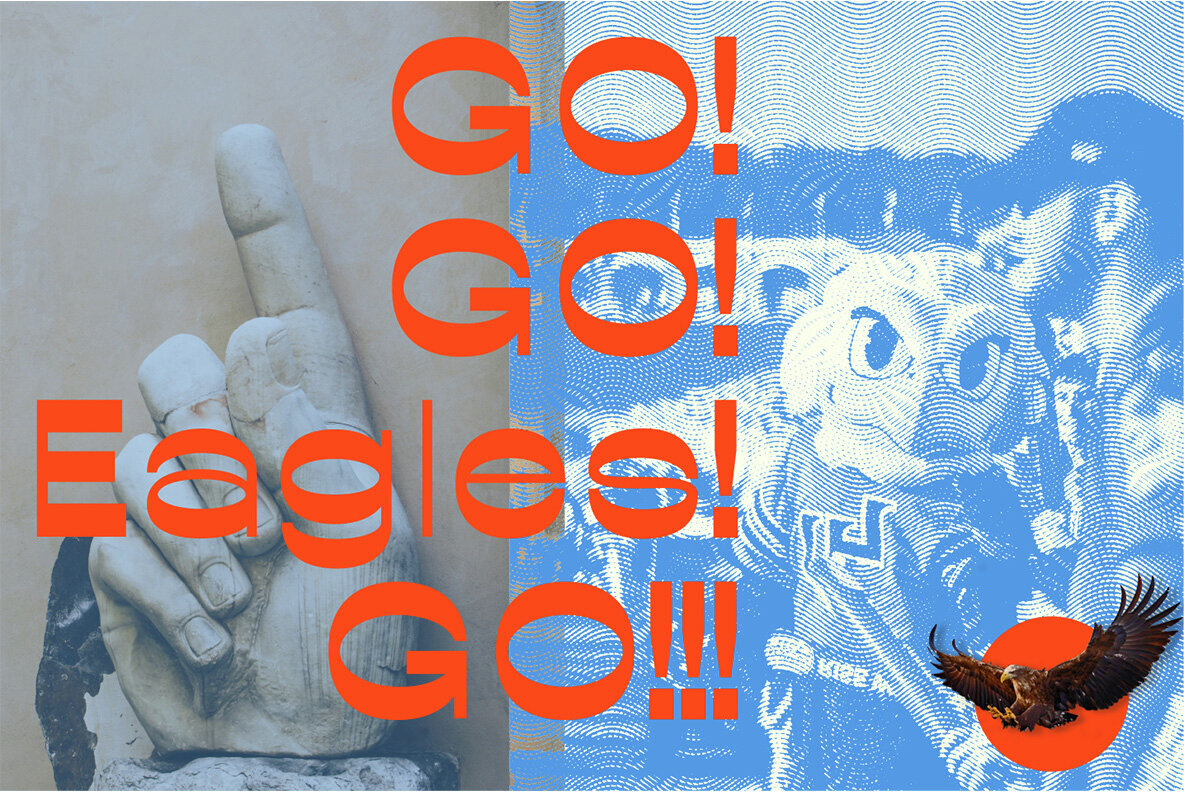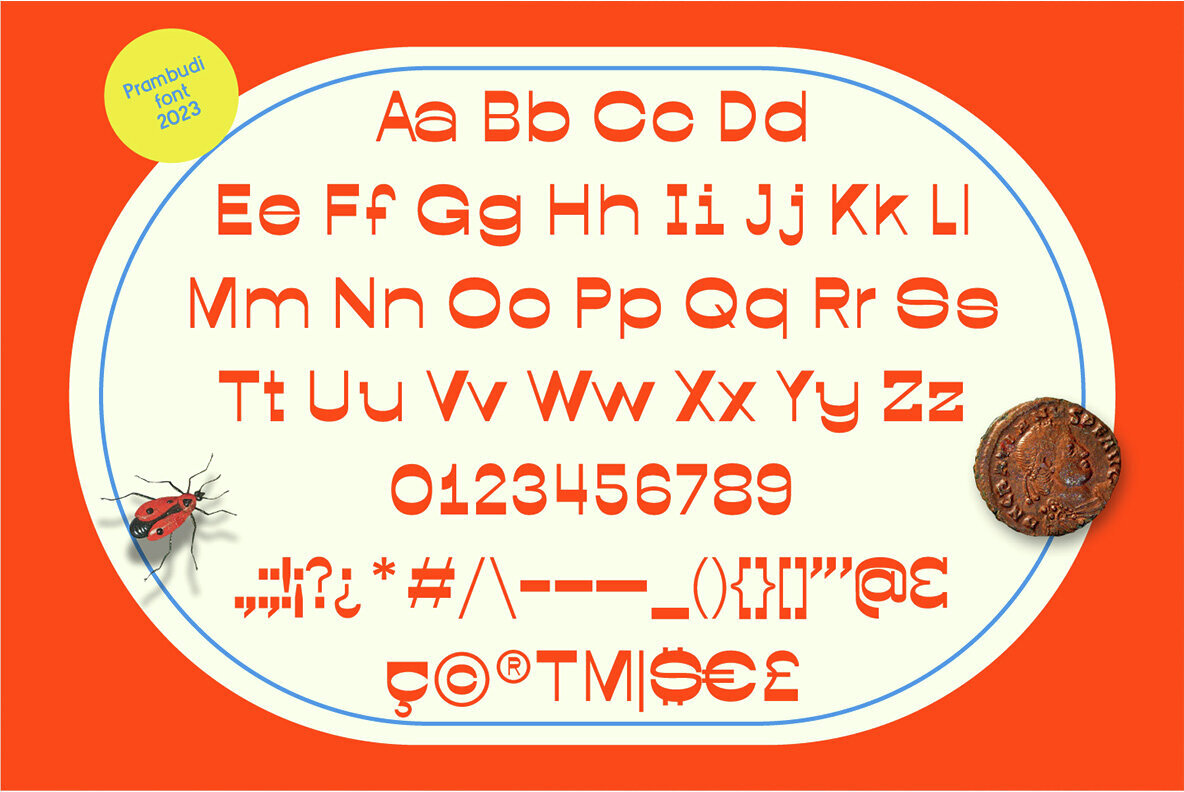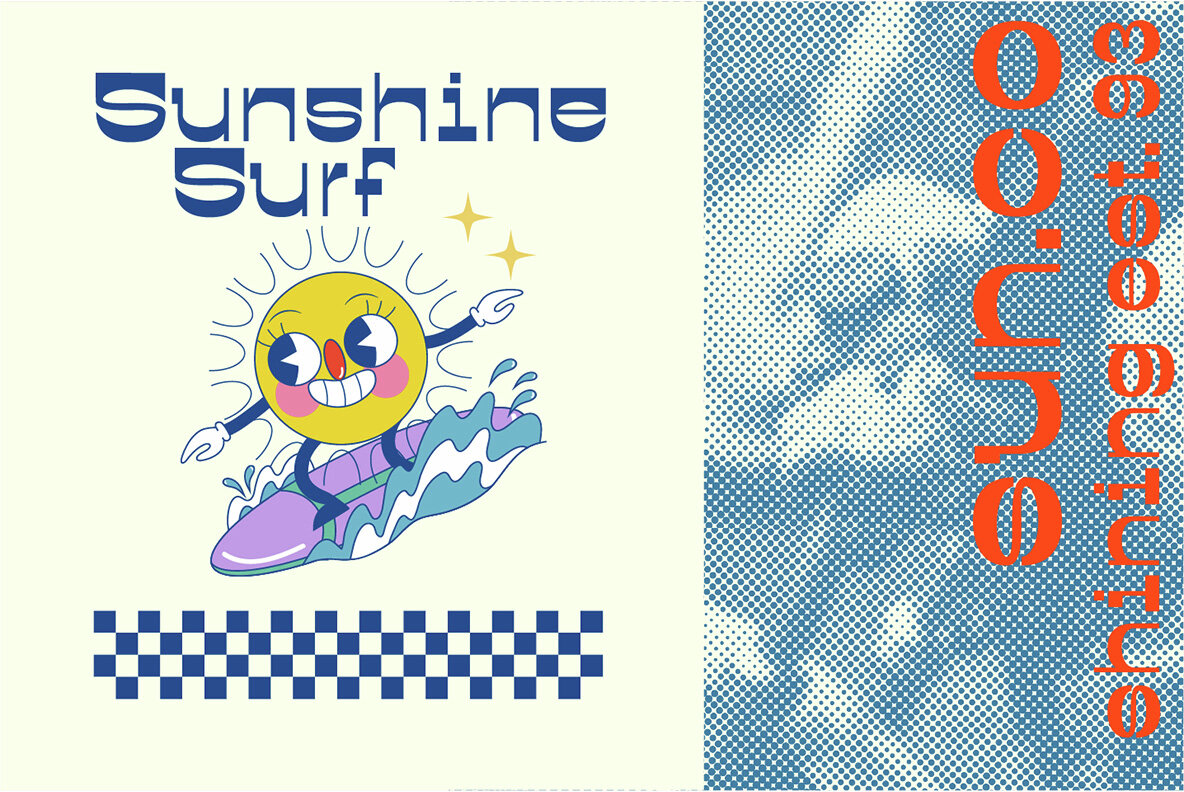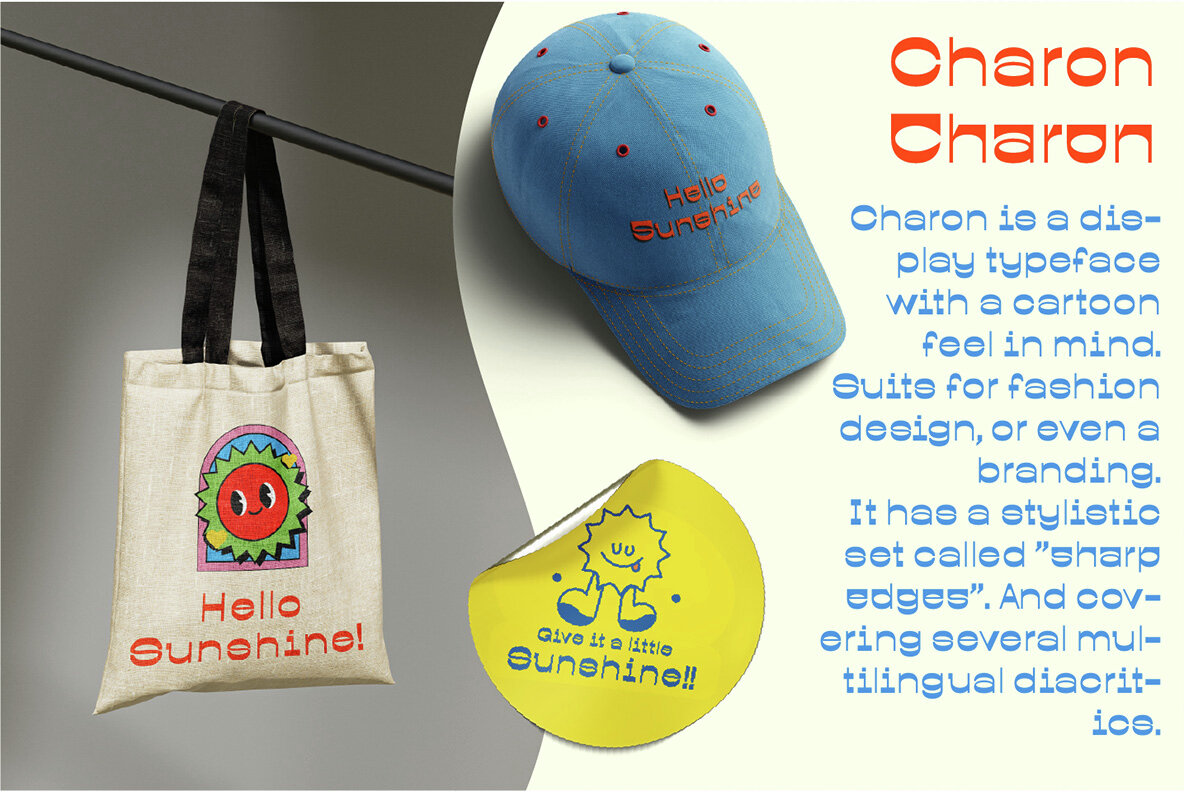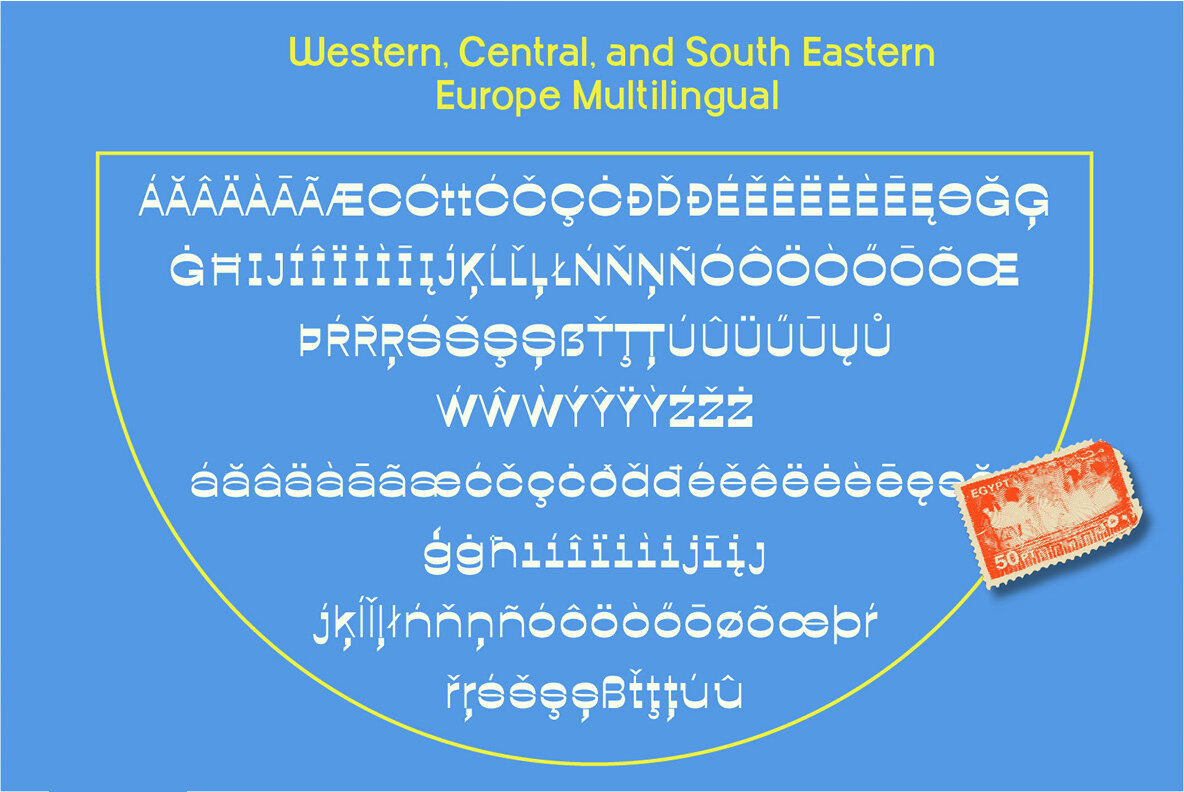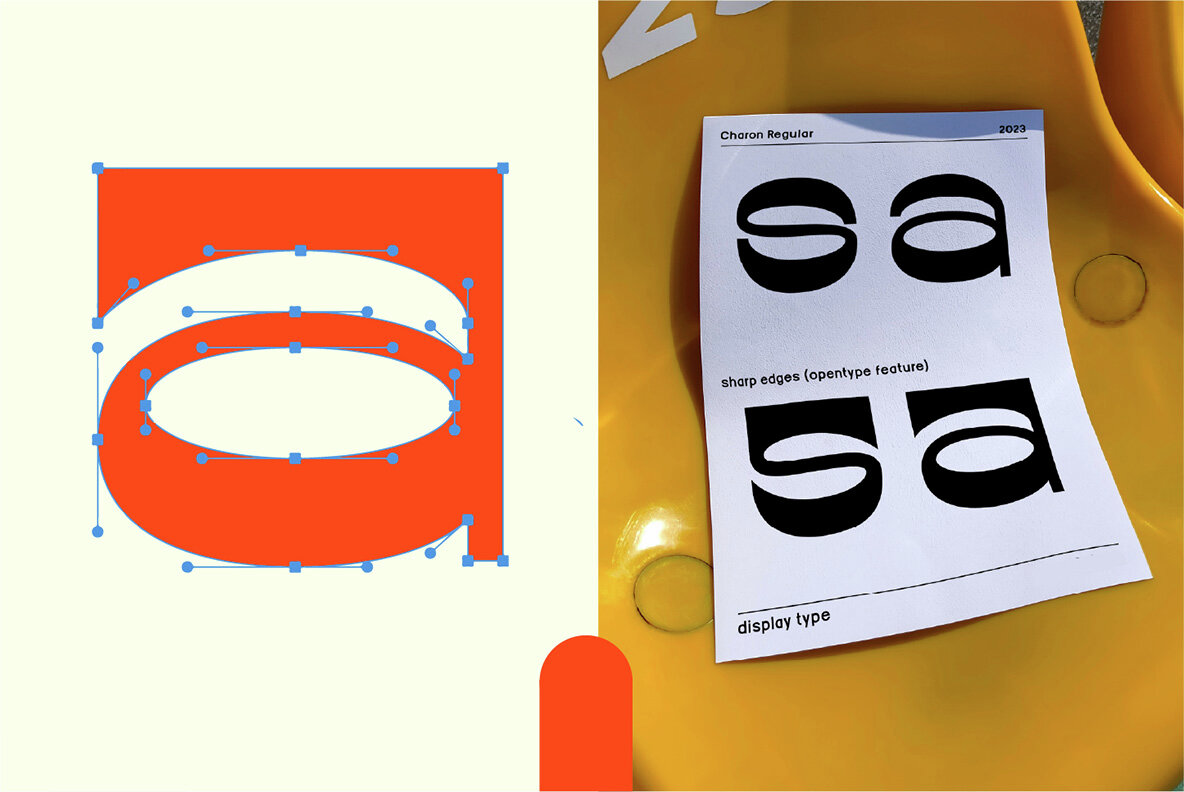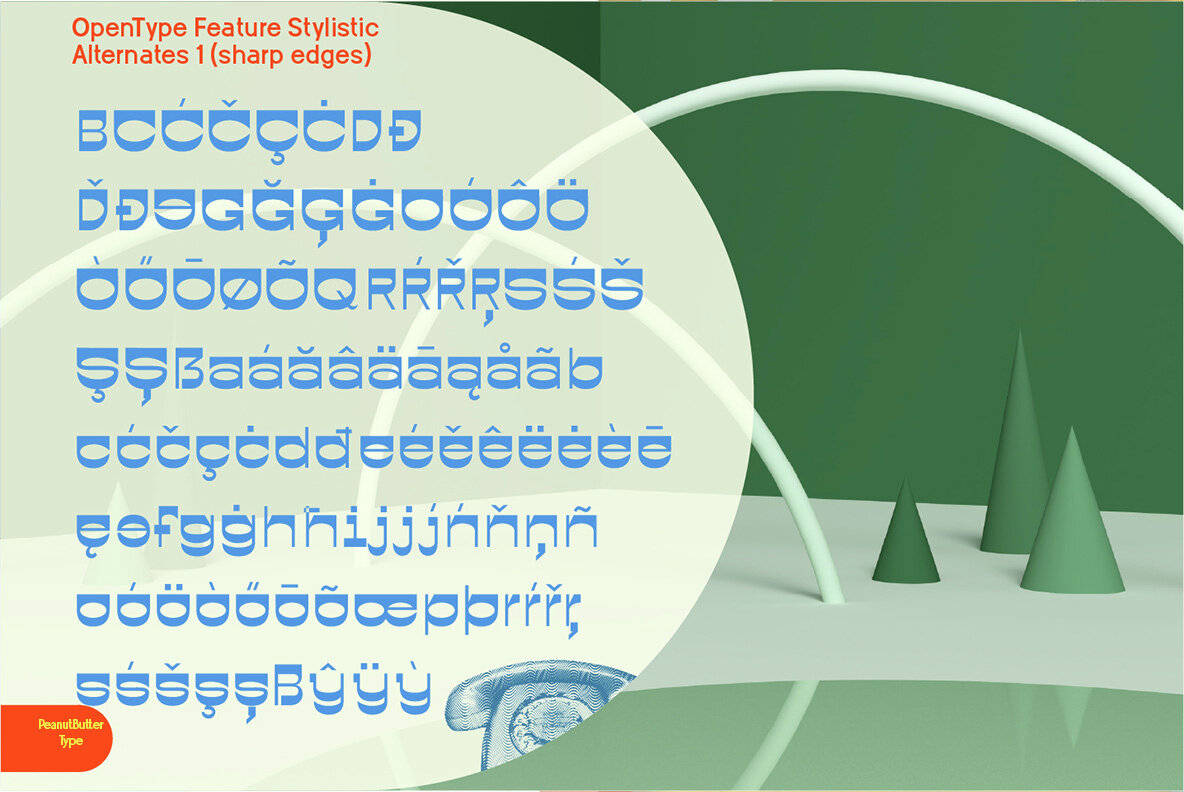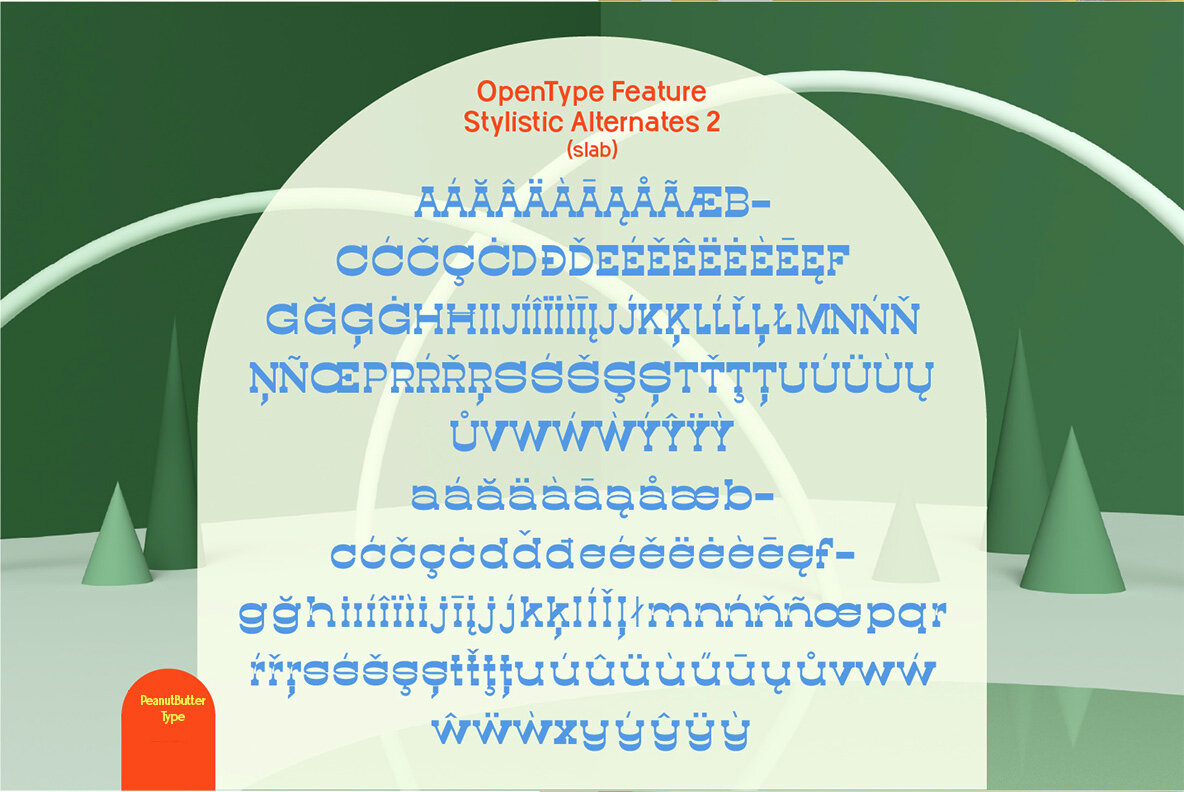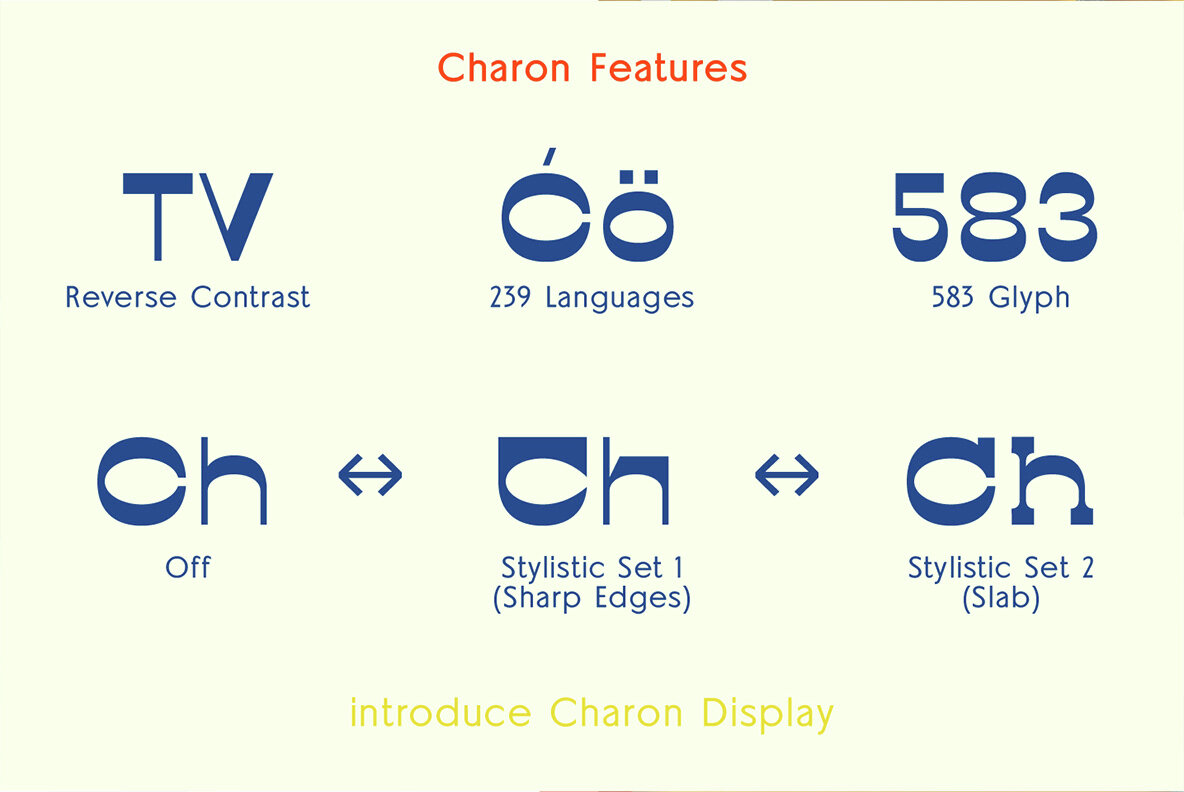
Charon Font
Charon Regular
Charon is a fun and approachable typeface with a unique reverse contrast design that adds a light and cheerful vibe to your projects. Perfect for logos, posters, and a variety of other design applications, Charon brings a friendly and engaging feel to your work.
This version includes three stylistic sets, supports 239 languages from Western, Central, and South Eastern Europe, and features a total of 583 glyphs. Its extensive language support and diverse glyph selection make it a versatile choice for a wide range of design needs.